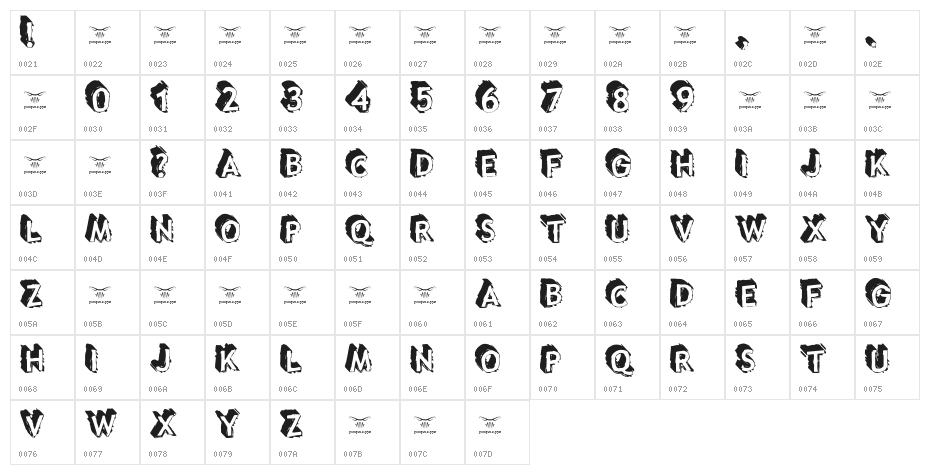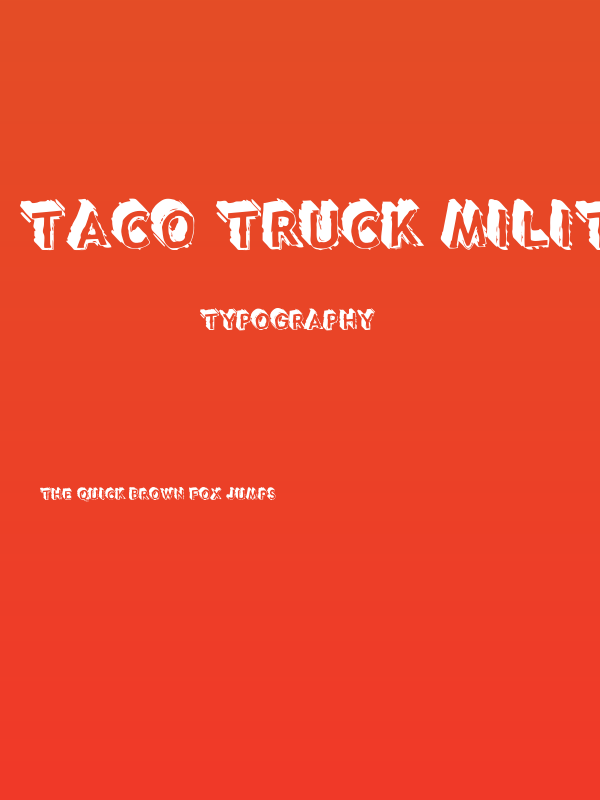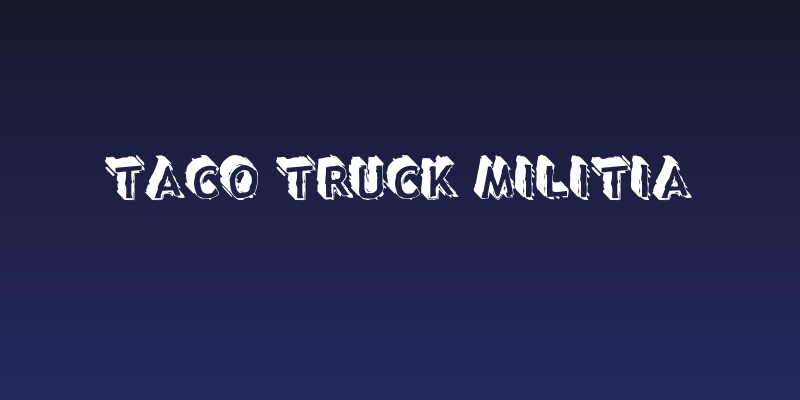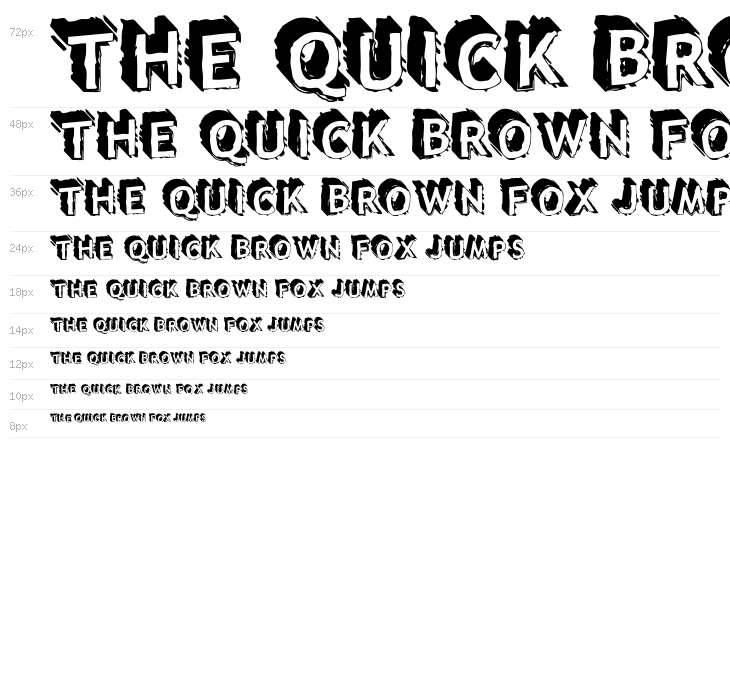
Taco Truck Militia Font
Taco Truck Militia Description
This font features a bold, distressed style with a rough, textured appearance that gives it a gritty, urban feel. The characters are uppercase and have a strong presence, making them ideal for attention-grabbing designs. The edges are uneven and jagged, adding to the rugged aesthetic. The numbers and special characters maintain the same bold and distressed look, ensuring consistency across all elements. This font is perfect for projects that require a bold statement or a rebellious, edgy vibe.
| Overall Style | Urban, Edgy, Distressed |
| Proposed Projects | Ideal for posters, album covers, streetwear branding, and any design needing a bold, edgy look. |